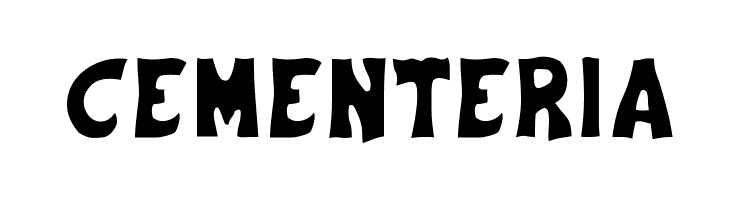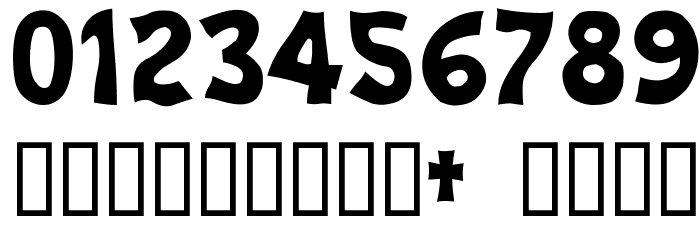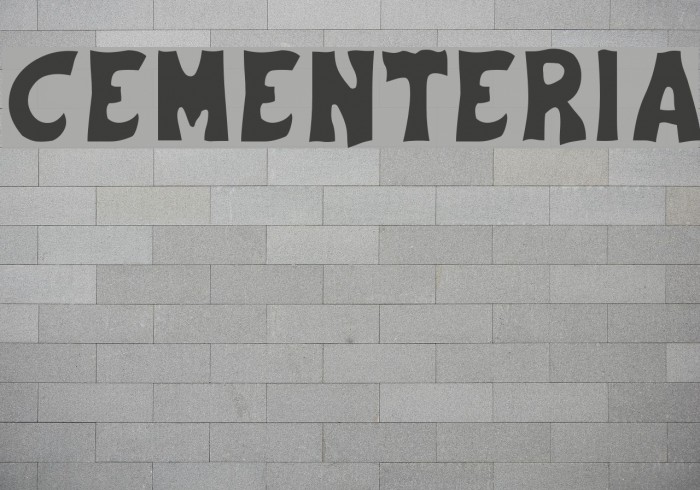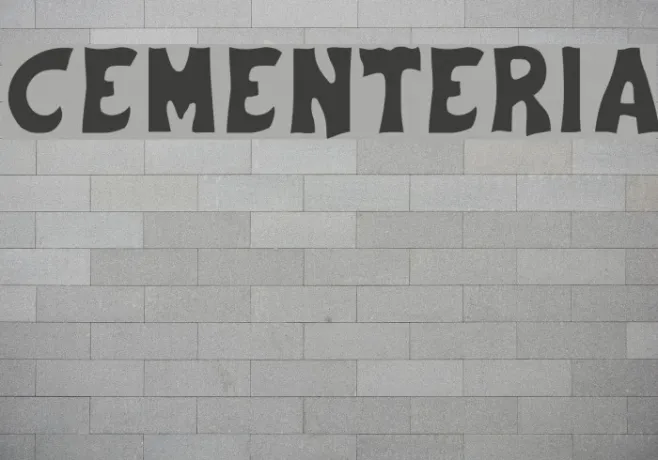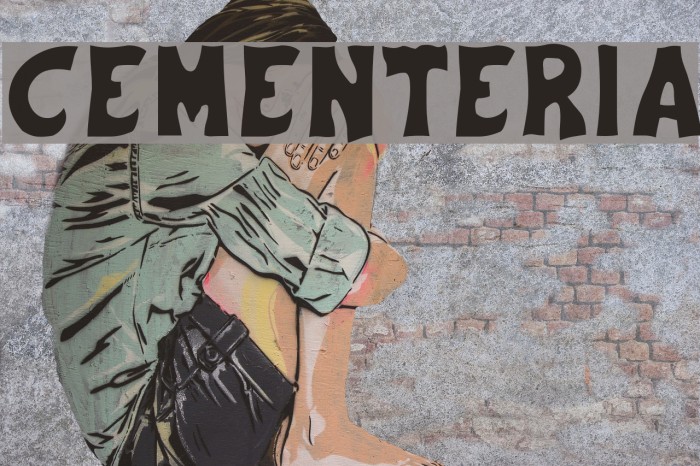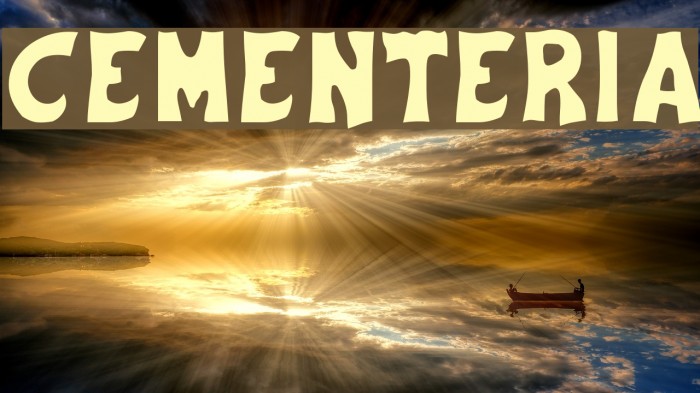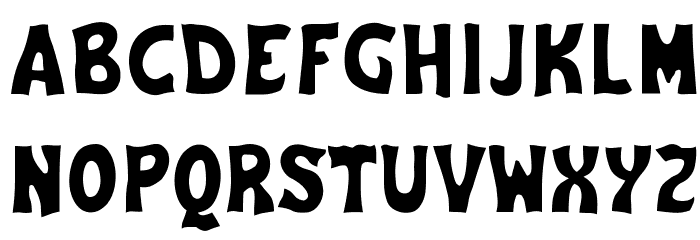
Cementeria Font
Cementeria Description
This font exhibits a bold and playful character with its thick, uneven strokes and whimsical curves. The letters have a hand-drawn, artistic feel, reminiscent of vintage poster designs. The uppercase and lowercase letters maintain a consistent style, with exaggerated serifs and a slightly irregular baseline, adding to its quirky charm. The numbers follow the same playful aesthetic, making them stand out with their bold presence. Special characters are creatively designed, fitting seamlessly with the overall style. This font is ideal for projects that require a fun and eye-catching display.
| Overall Style | Vintage, Decorative |